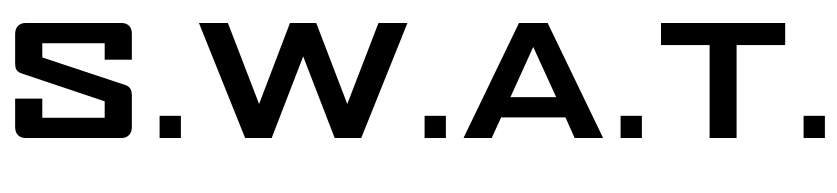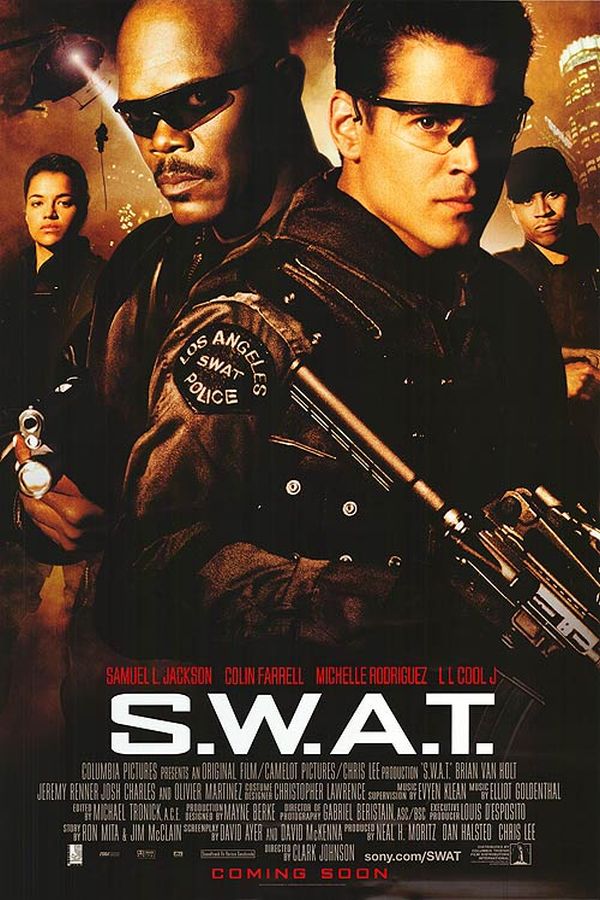
S.W.A.T. Font
ActionS.W.A.T. is a 2003 American action crime thriller film directed by Clark Johnson and written by David Ayer and David McKenna. The film details the escorting of a drug kingpin/international fugitive to prison by Hondo (Jackson) and the SWAT team after the kingpin offers $100 million to anyone who can break him free from the city.
The movie S.W.A.T.'s title on the poster uses Agency FB Bold, a square sans serif originally designed by Morris Fuller Benton in 1932. More information about the Agency typeface can be found here.